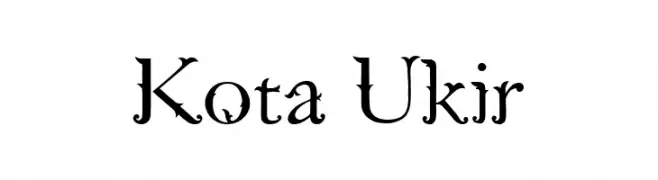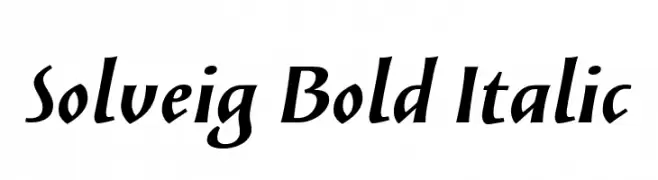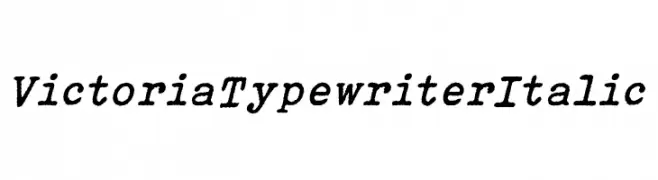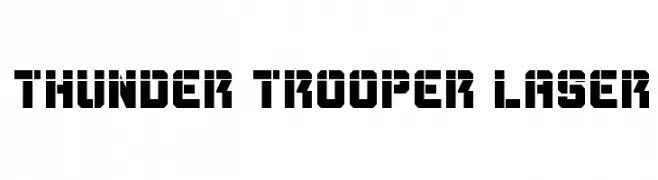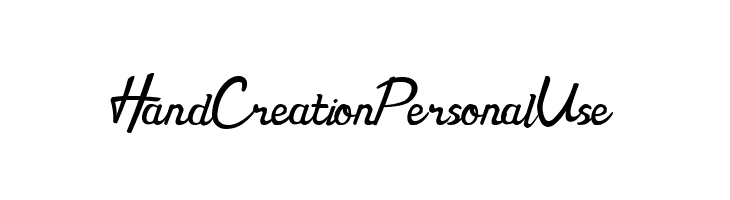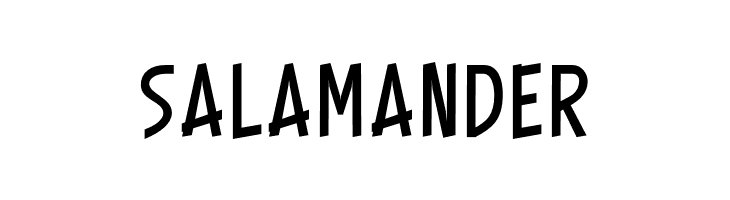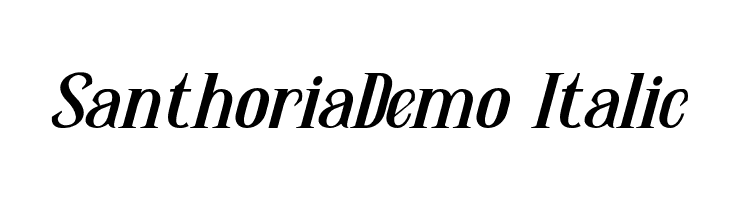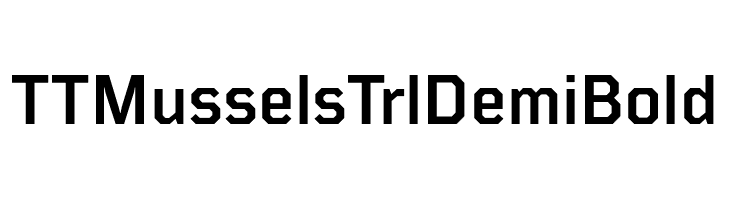
A playful, rounded font with a hand-drawn, casual style.
An ornate and decorative font with elegant swirls and artistic flair.
A modern, rounded font with a clean and approachable design.
A bold, italic serif font with high contrast and dynamic style.
A bold, expressive script font with dynamic, hand-drawn strokes.
An elegant script font with high contrast and ornate flourishes.
A lively, handwritten font with fluid cursive letterforms.
A vintage, monospaced italic font with a classic typewriter feel.
A bold, geometric font with a futuristic, industrial design.
Ultra-light, extra-condensed sans-serif with a modern, minimal look.